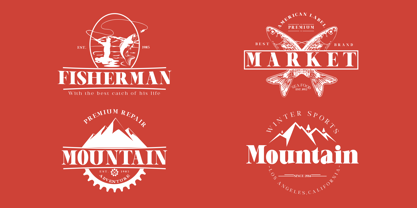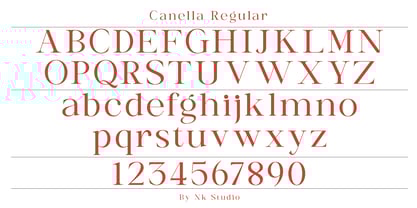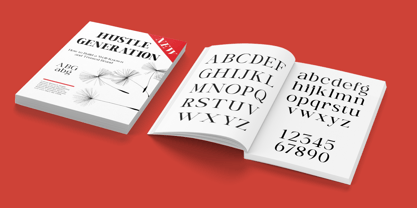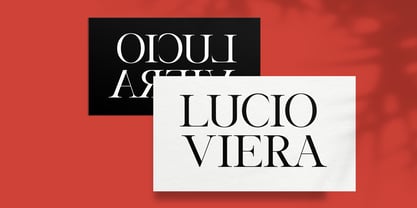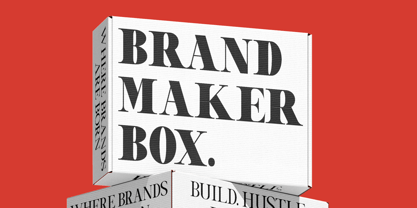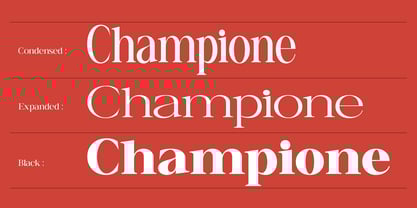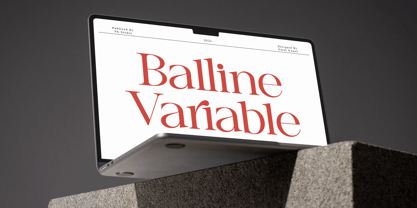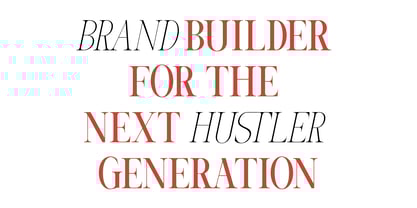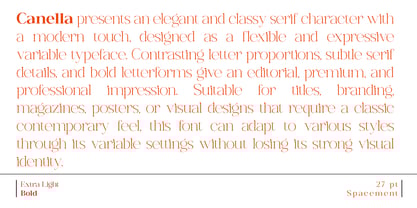
Canella
by Nk Studio
The Canella Font Family was designed by Nurul Kamal and published by Nk Studio. Canella contains 55 styles and family package options. More about this family
Canella is a modern serif typeface designed to convey elegance, flexibility, and strong visual character. Created with a contemporary editorial approach, Canella blends classic serif traditions with modern proportions, making it a versatile choice for a wide range of design applications. Designed as a variable font, Canella allows designers to precisely control weight and expression, offering maximum adaptability across print and digital media. Its letterforms feature a balanced contrast of thick and thin strokes, gentle curves, and bold vertical strokes—resulting in a sophisticated and timeless aesthetic. Canella includes six carefully designed styles and a total of 54 font files, providing extensive typographic control while maintaining visual consistency. Whether used for bold headlines or subtle display text, Canella performs beautifully across a variety of sizes and layouts. This typeface is ideal for branding and identity systems, editorial layouts, fashion and lifestyle magazines, luxury packaging, logos, posters, websites, and social media graphics. Its elegant presence elevates premium design concepts while remaining clean and legible. Canella is designed for designers who value expressive typography, flexibility, and modern elegance. With its diverse capabilities and refined serif shapes, Balline empowers creative professionals to create distinctive visual identities with confidence and style.
Designers: Nurul Kamal
Foundry: Nk Studio